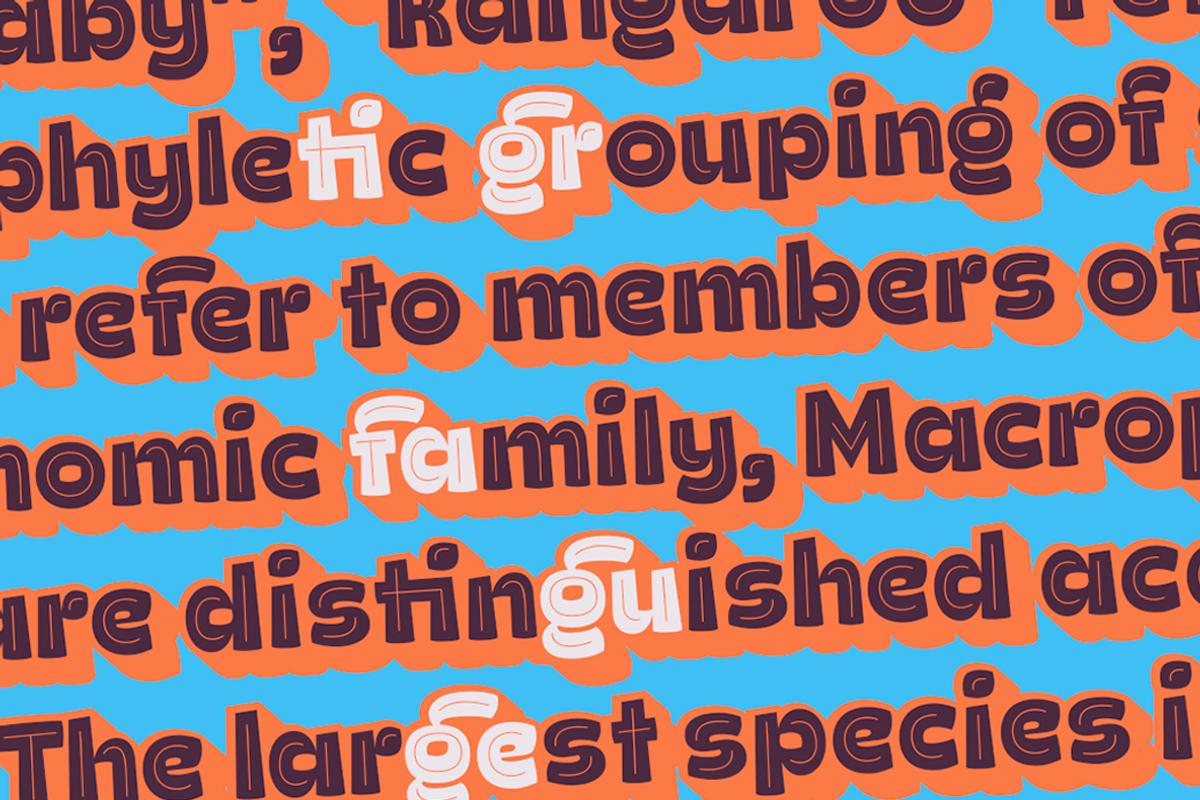
Ding extra, is an extended version of ding where you can find layers, shadows, lines, dingbats, it is a very versatile and versatile font, it contains Cyrillic alphabet, as well as many ligatures. -- Regards Rodrigo A.